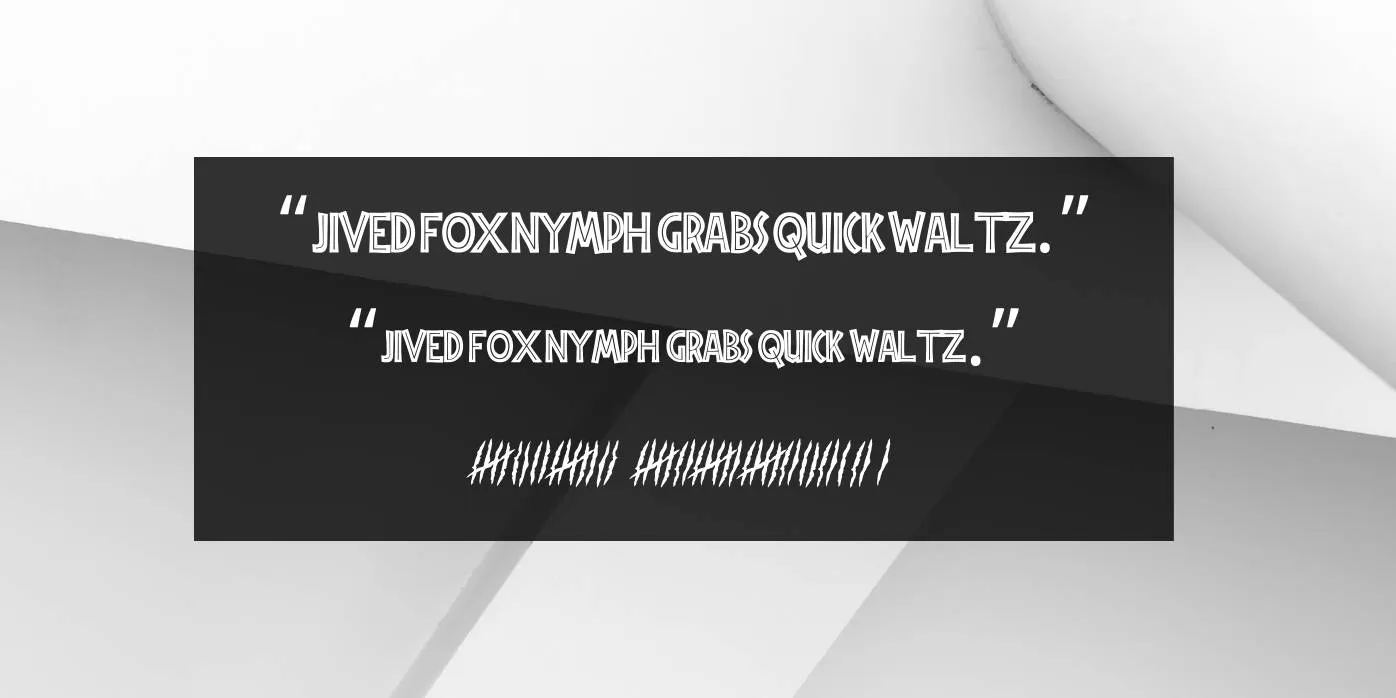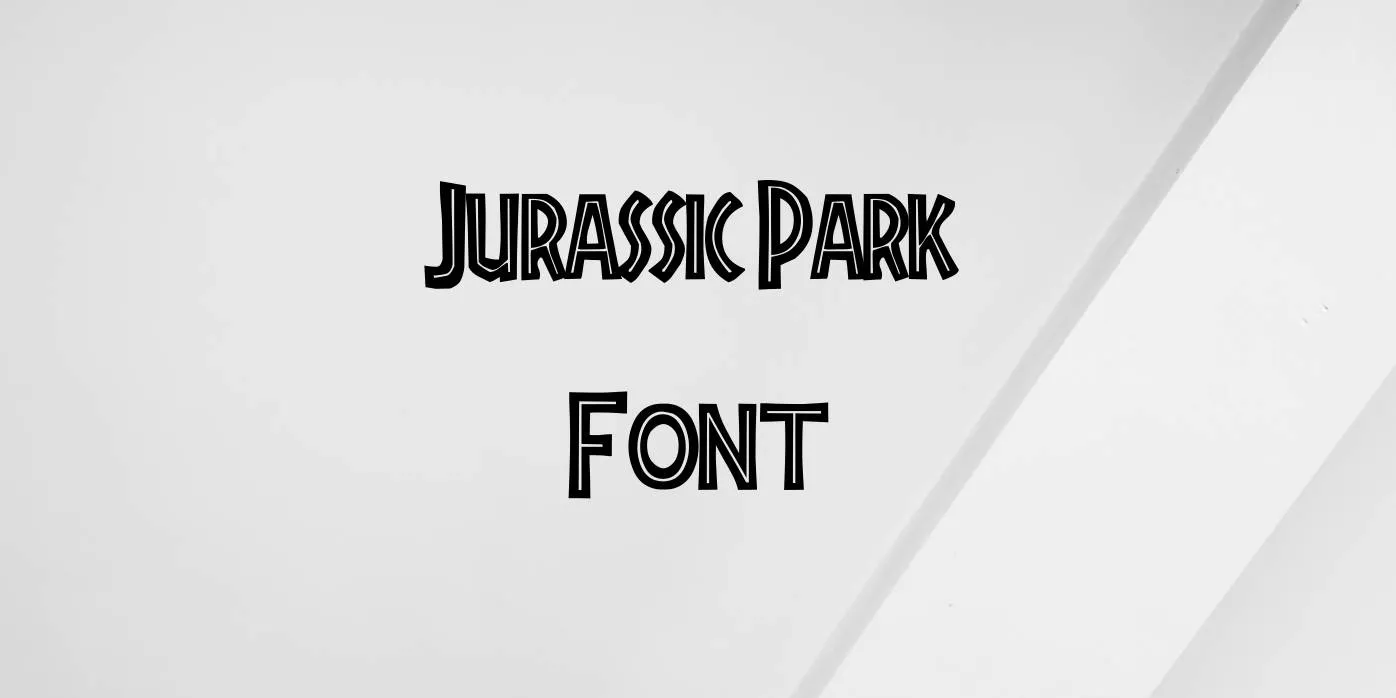
Jurassic Park Font
Jurassic Park Font belongs to the display family. The Jurassic franchise is a series of novels, films, and video games about the fictional Isla Nublar. The first film in the franchise was released in 1993 and was directed by Steven Spielberg. The film became a critical and commercial success, grossing more than $914 million worldwide.
It has neat and clean textures. This font family is used for different programs like Adobe, Canva, and so on. For more classic features, you will have to use its alternative jedi font which has the same features. The Jurassic Park Typeface is based on the lettering used for the movie title in the posters and promotional materials.